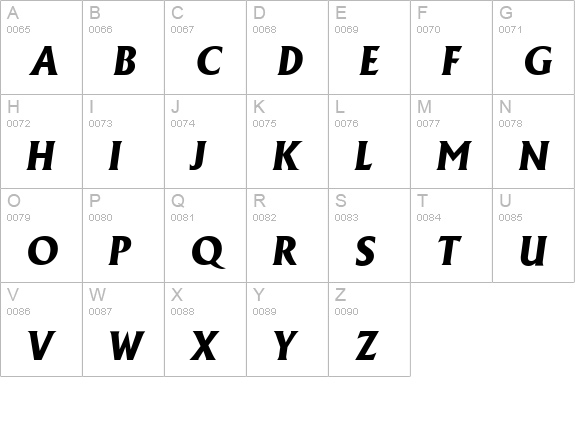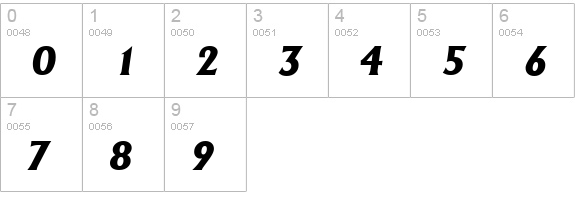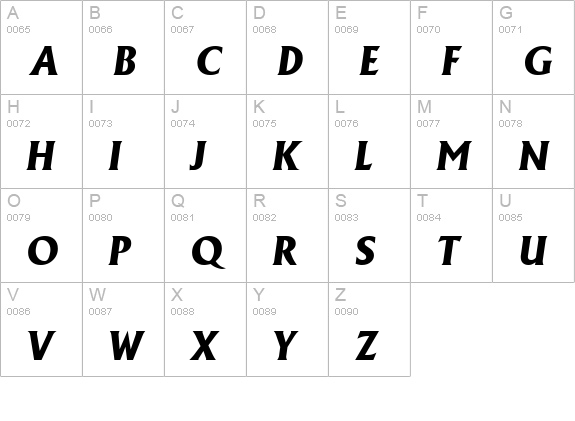
AdelonSerial-Xbold-Italic is a distinctive, italic variant in the AdelonSerial typeface family \xE2\x80\x94 well suited to design and typography projects.
AdelonSerial-Xbold-Italic is a striking and modern font that exudes elegance and sophistication. Its bold and italicized design makes it perfect for adding a touch of flair to any project. With its sleek lines and unique serifs, this font is sure to make a statement. And the best part? AdelonSerial-Xbold-Italic is completely free to download at FontsMarket.com! Whether you're working on a professional design project or simply looking to elevate your personal creations, this font is a fantastic choice. Don't miss out on the opportunity to add this stunning font to your collection today.